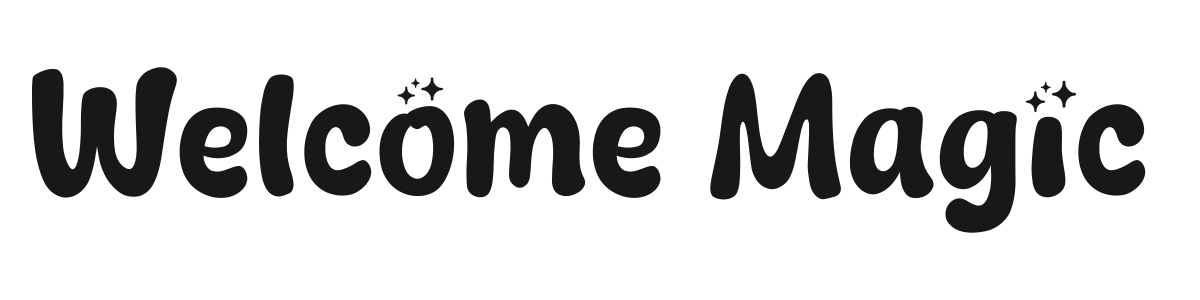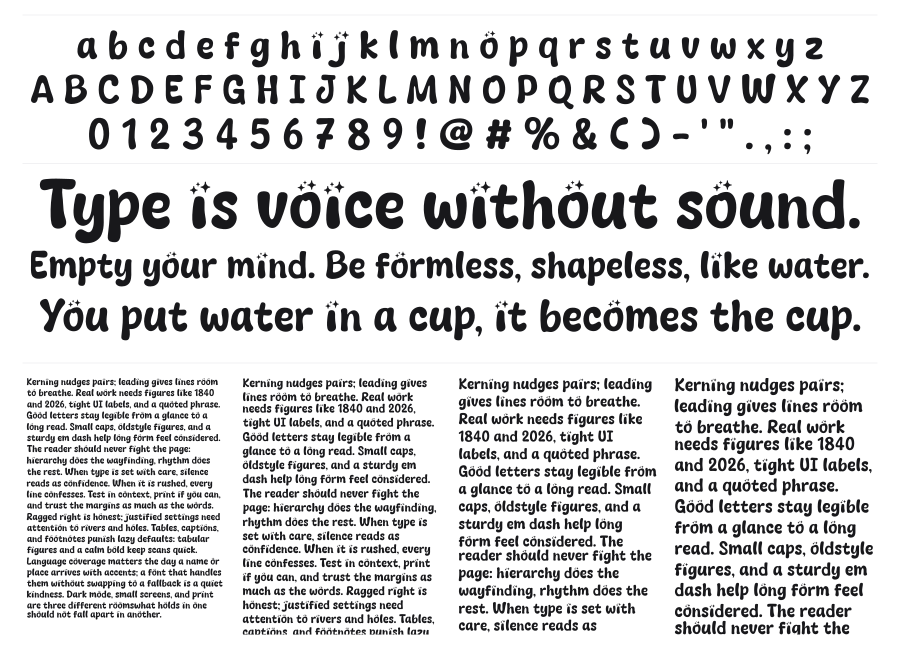
Welcome Magic
Welcome Magic is a bold casual script with thick rounded strokes and a warm hand-lettered rhythm. Sparkle ornaments punctuate select characters, giving the font an enchanting, celebratory feel that goes beyond a standard brush script. It has real weight and presence at large sizes, making it a strong choice for product packaging, children's branding, and festive headlines.